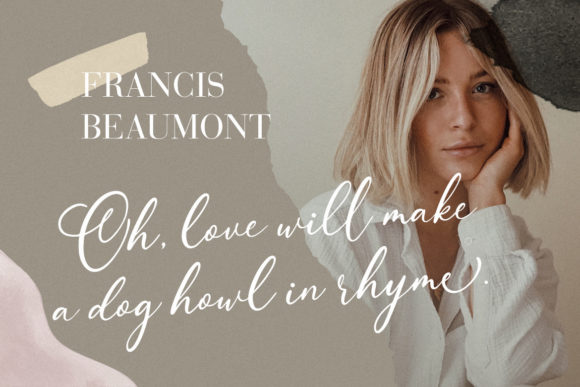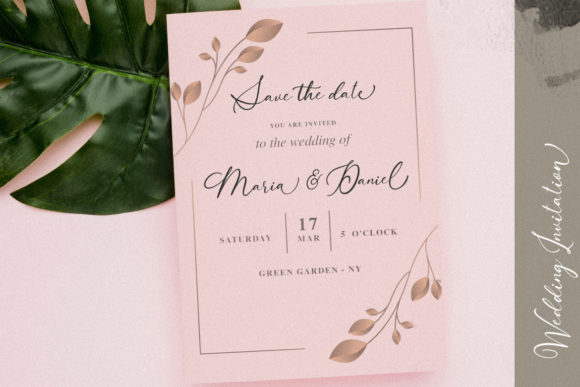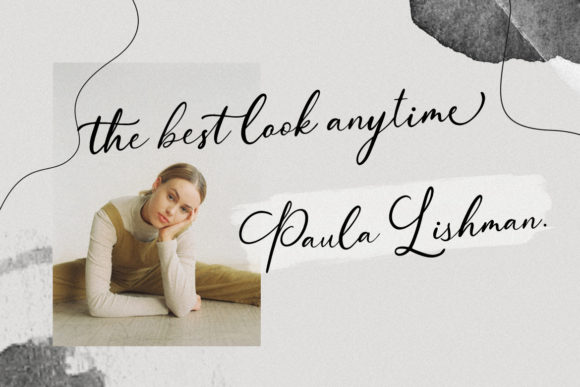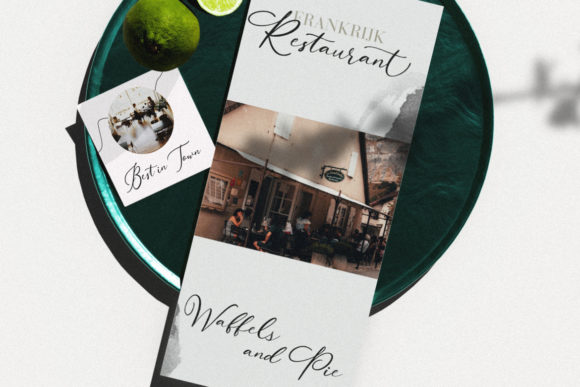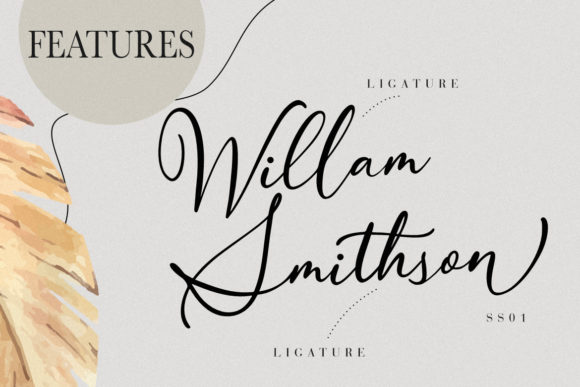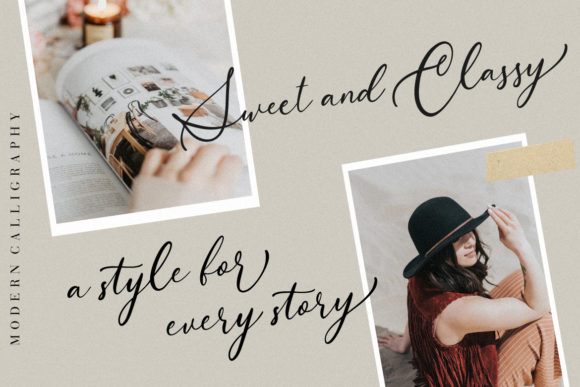
The Perfect Brushstroke: Discovering the Aurelye Font
Have you ever found yourself lost in the world of fonts, searching for that one perfect script to elevate your design to the next level? We’ve all been there – scrolling through endless options, trying to find that elusive balance between elegance and legibility. For designers, the quest for the ideal font can be a daunting task, but what if we told you that your search is over?
Enter the Aurelye Font, a stunning script font that embodies the perfect blend of classic calligraphy and modern sophistication. With its balanced and varied lines, Aurelye is designed to add a touch of timeless beauty to any project. Whether you’re working on a logo, a wedding invitation, or a brand identity, this font is sure to make your designs stand out. And with its PUA encoding, accessing all the glyphs and swashes is a breeze – giving you the creative freedom to take your designs to new heights.
Aurelye Font Key Features
- Size: The font size ranges from 8 to 120 points, with 5 different font weights: Light, Regular, Medium, Bold, and Black.
- Unique Characteristics: This elegant script font features beautiful, flowing connections between letters and a range of subtle flourishes.
- Language Support: Aurelye Font supports a wide range of languages, including Latin-based alphabets, Cyrillic, and Greek.
Aurelye Font Review
I recently had the chance to work with the Aurelye font, and I must say it’s a unique and stylish choice. ✨ The font’s elegant script design is perfect for adding a touch of sophistication to your designs. It’s especially great for headings and titles, where you want to make a statement.
The Aurelye font also works well for body text, especially in longer passages where you want to create a sense of flow and continuity. ✨ The font’s curved lines and rounded edges make it easy to read, even in smaller font sizes.
While the Aurelye font is great for many uses, there are some limitations to consider:
- ⚠️ The font may not be suitable for formal or professional documents, as its script design can come across as too casual.
- ⚠️ The font’s curves and lines can be difficult to read in very small font sizes or when used for large blocks of text.
Overall, I think the Aurelye font is a great choice for designers who want to add a touch of elegance and sophistication to their work. It’s perfect for creative projects, such as wedding invitations, menus, or any other design that requires a unique and stylish font.
Aurelye Font is ideal for:
- Corporate branding and marketing materials
- High-end product designs and packaging
- Magazine and newspaper layouts
Alternatives to Aurelye Font
Oswald is a popular sans-serif font known for its clean and modern look. It is ideal for use in headings and titles due to its bold and strong appearance. Oswald is more geometric in design compared to Aurelye Font, which has a more rounded and elegant feel.
Lato is a sans-serif font that offers a clean and minimalist look. It is suitable for use in body text and is often used in digital design. Lato is more delicate than Aurelye Font and lacks its elegance, but it is highly legible and versatile.
Montserrat is a sans-serif font that originated from urban typography in Argentina. It is highly legible and suitable for use in body text, especially in digital design. Montserrat is more condensed than Aurelye Font and has a stronger geometric feel.
Open Sans is a highly legible sans-serif font that is widely used in digital design. It is suitable for use in body text and is often used in web design due to its readability and versatility. Open Sans is more modern and clean compared to Aurelye Font, but it lacks its elegance and sophistication.